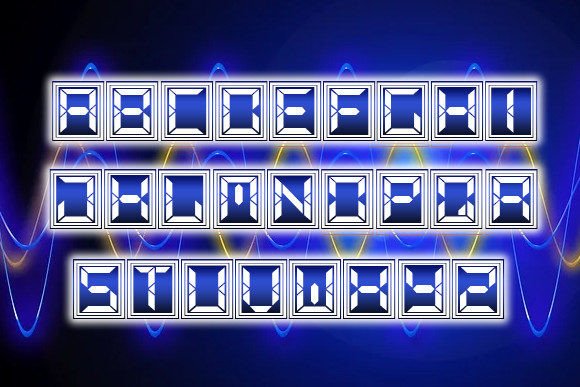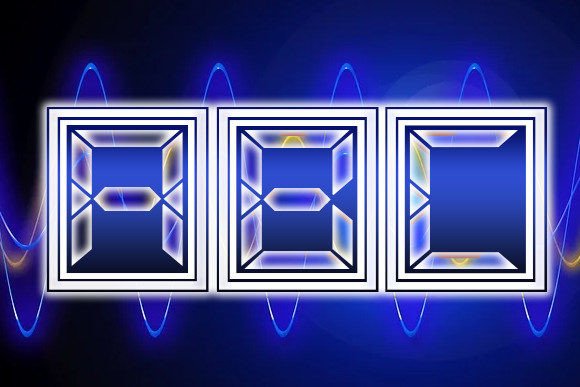
Catalyst Font: Elevate Your Designs with a Stunning LCD Typeface
Are you looking for a font that can add a touch of modernity and sleekness to your designs? Look no further than the Catalyst Font. This awesome LCD typeface is perfect for designers and crafters who want to create stunning visual content that stands out from the crowd. In this article, we’ll explore the features and benefits of the Catalyst Font, and how you can use it to take your designs to the next level.
What is Catalyst Font?
Catalyst Font is a modern LCD typeface designed to give your designs a fresh and futuristic look. Its sleek lines, geometric shapes, and bold character make it perfect for creating eye-catching posters, flyers, banners, and other visual content. The font is highly versatile and can be used for a wide range of design projects, from advertising and marketing materials to digital displays and signage.
Key Features of Catalyst Font
- Unique LCD design: The Catalyst Font features a unique LCD design that gives it a modern and futuristic look.
- Highly legible: The font is designed to be highly legible, even at small sizes, making it perfect for use on a variety of design projects.
- Bold and eye-catching: The Catalyst Font is bold and eye-catching, making it perfect for creating visual content that stands out from the crowd.
- Highly versatile: The font can be used for a wide range of design projects, from advertising and marketing materials to digital displays and signage.
How to Use Catalyst Font in Your Designs
Using the Catalyst Font in your designs is easy. Here are a few tips to get you started:
- Pair it with bold colors: The Catalyst Font looks great when paired with bold, bright colors. Try using it with a bold color scheme to create a striking visual effect.
- Use it for headlines: The Catalyst Font is perfect for use in headlines and titles. Its bold and eye-catching design makes it perfect for grabbing the attention of your audience.
- Experiment with different sizes: The Catalyst Font is highly legible, even at small sizes. Experiment with different sizes to see how it looks in different contexts.
Benefits of Using Catalyst Font
There are many benefits to using the Catalyst Font in your designs. Here are a few:
- Instantly recognizable: The Catalyst Font is instantly recognizable, making it perfect for creating visual content that stands out from the crowd.
- Highly versatile: The font can be used for a wide range of design projects, from advertising and marketing materials to digital displays and signage.
- Perfect for modern designs: The Catalyst Font is perfect for modern designs that require a sleek and futuristic look.
Where to Use Catalyst Font
The Catalyst Font can be used in a wide range of design projects, including:
- Posters: The Catalyst Font is perfect for use on posters, where its bold and eye-catching design can really make an impact.
- Flyers: The font is also great for use on flyers, where its highly legible design makes it easy to read.
- Banners: The Catalyst Font is perfect for use on banners, where its bold and eye-catching design can really make an impact.
- Digital displays: The font is also great for use on digital displays, such as LED screens and digital signage.
In conclusion, the Catalyst Font is an awesome LCD typeface that can add a touch of modernity and sleekness to your designs. Its unique design, high legibility, and versatility make it perfect for a wide range of design projects, from posters and flyers to digital displays and signage. Whether you’re a designer or crafter, the Catalyst Font is a great choice for anyone looking to create stunning visual content that stands out from the crowd.